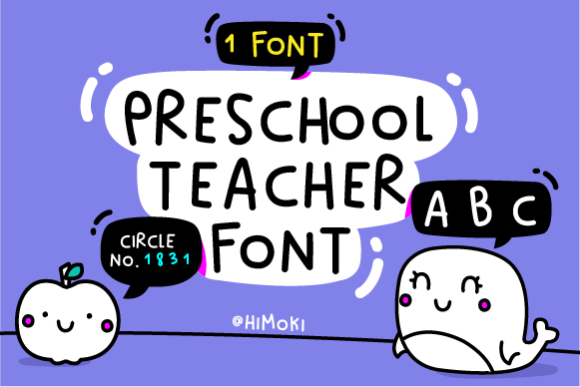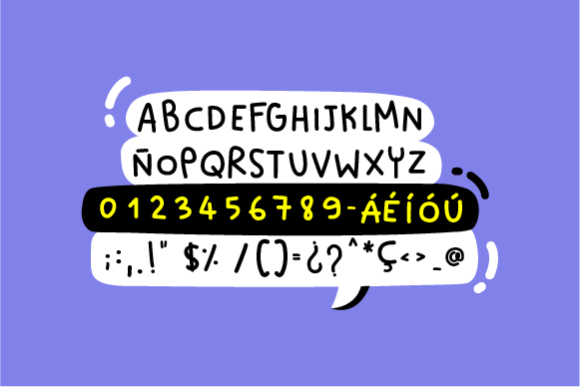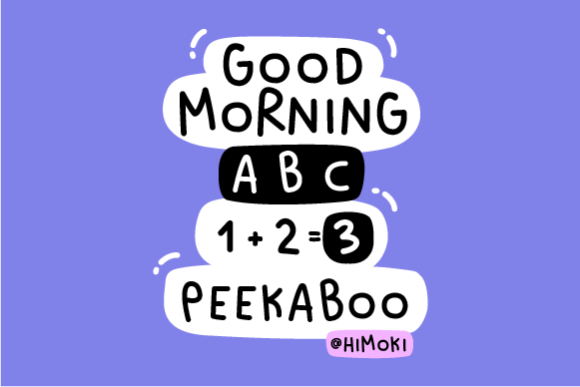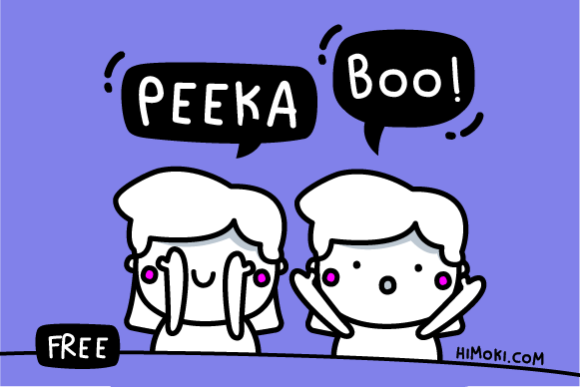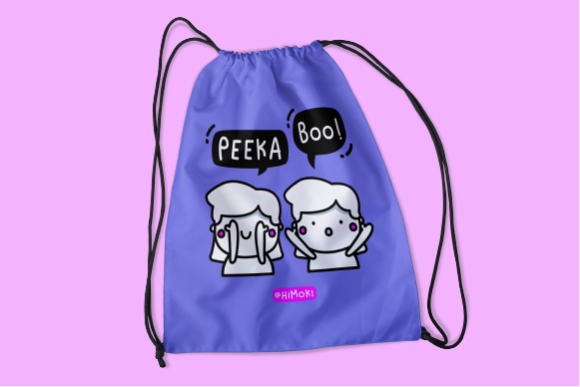
Preschool Teacher Font
About Preschool Teacher Font
Preschool Teacher embodies fun, quirkiness and authenticity. This enchanting handwritten font will turn any creative idea into a true standout. Get creative with its childlike playfulness, and use it to brighten up any kids and school project!